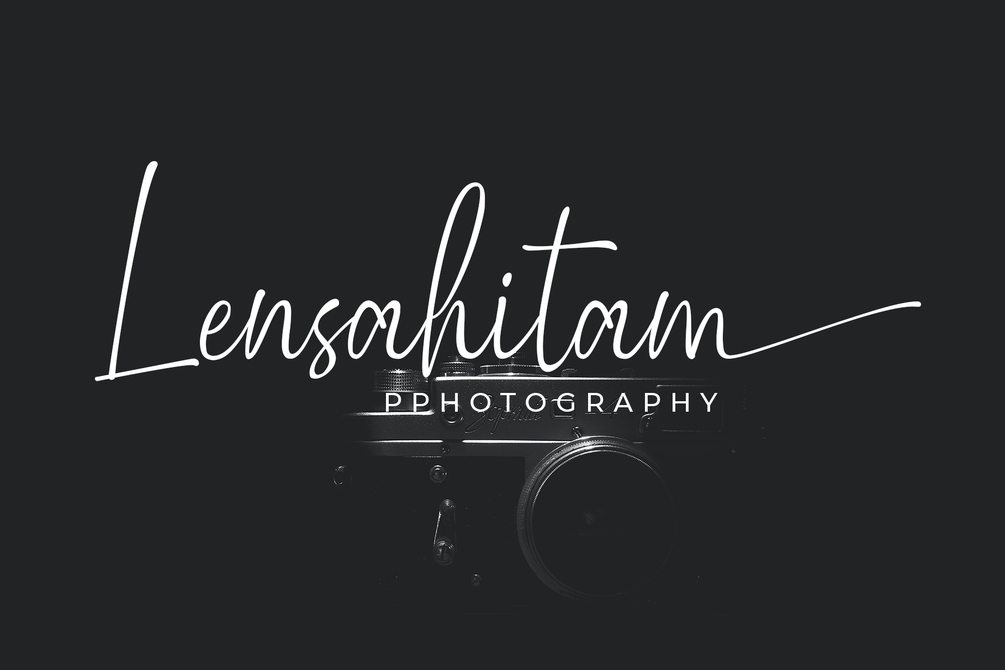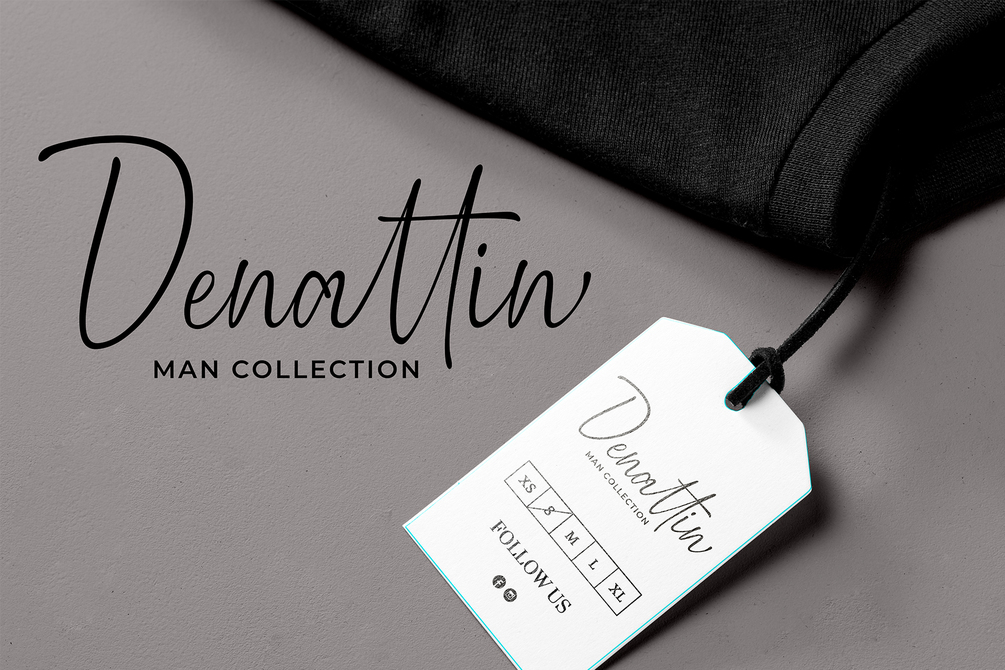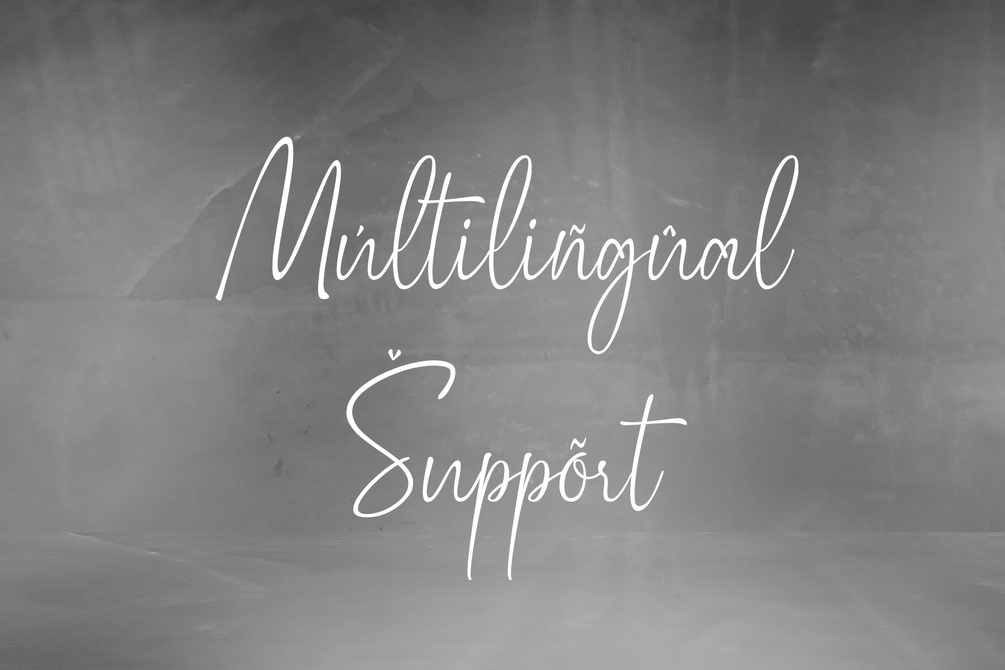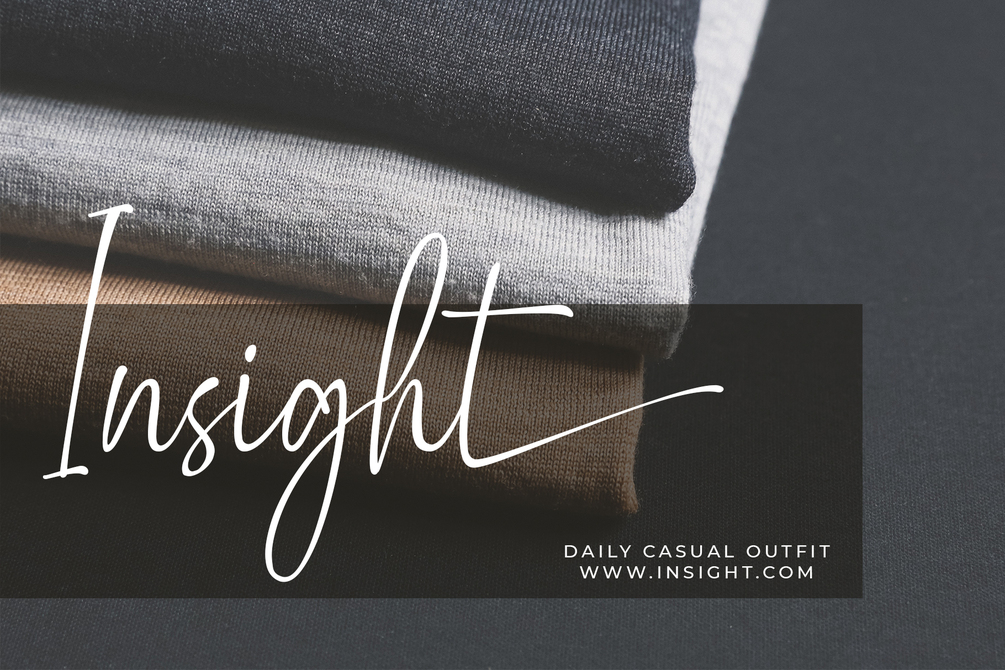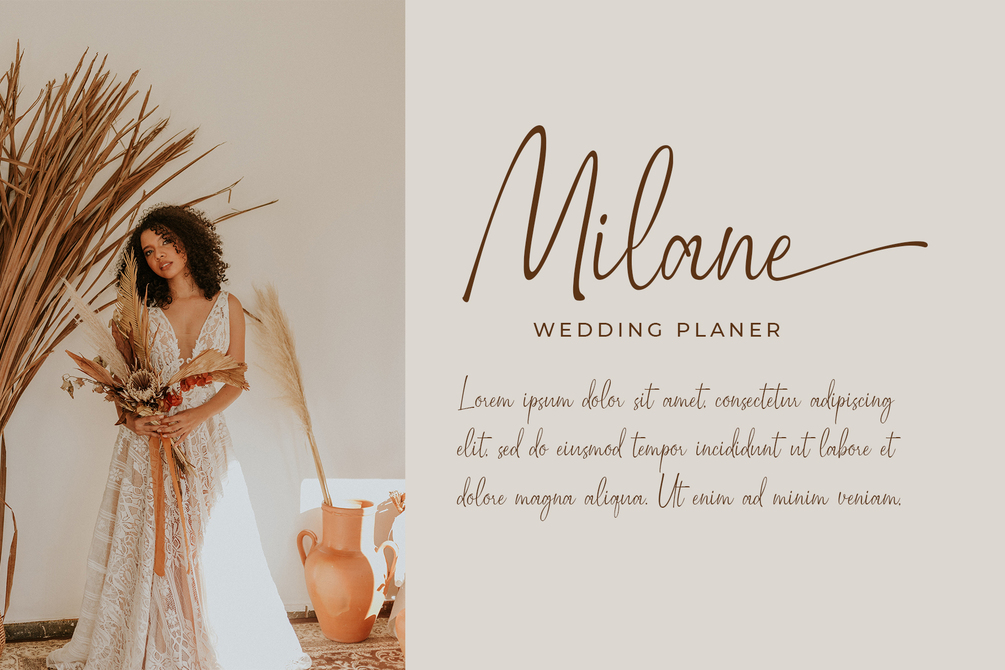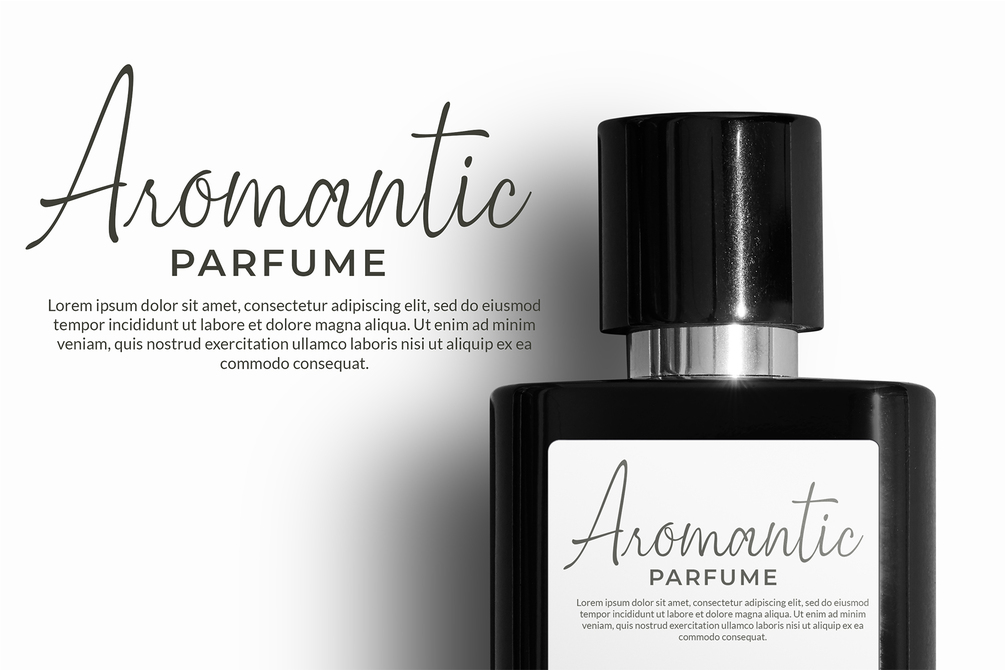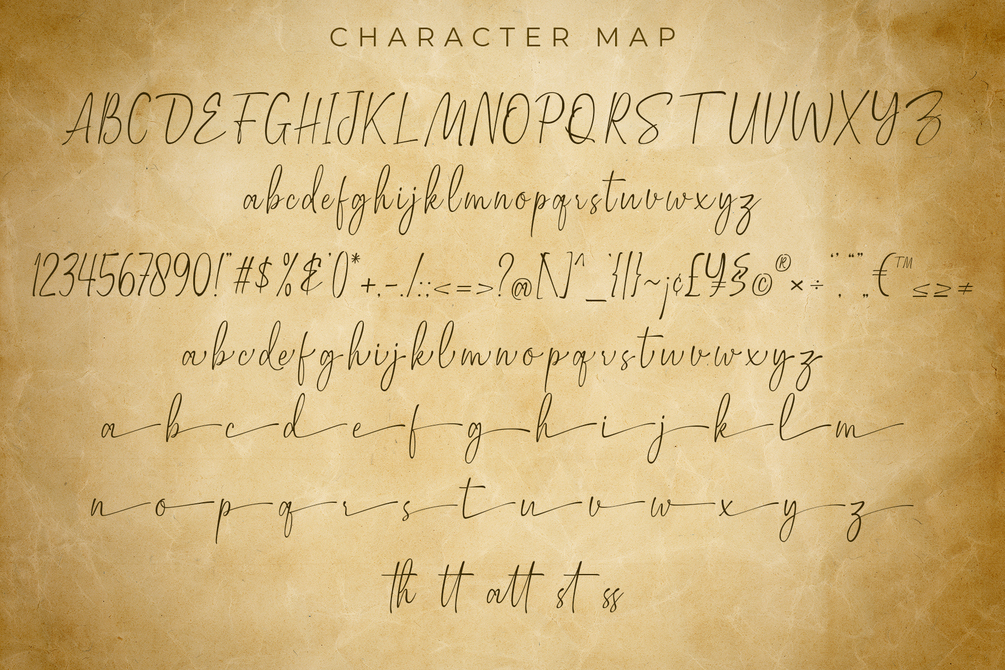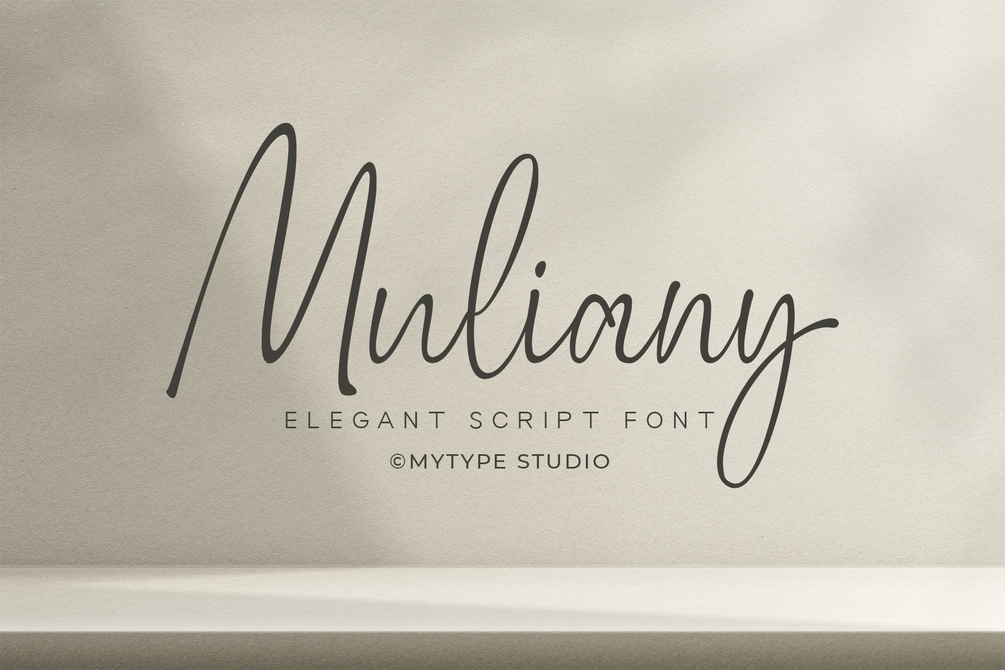
Muliany | Elegant Script Font
EAZY TO USE just type __ before and after your typing to acsess the swash
After receiving lots of feedback about difficulties accessing "swashes". We made several updates to make it easier for you to create more and also improve the dimensions of this font to be more perfect.
Muliany is collection font with natural movement make looks elegant, classy and beauty for your project. Muliany is perfect for branding projects, logo, wedding designs, social media posts, advertisements, product packaging, product designs, label, photography, watermark, invitation, stationery and any projects